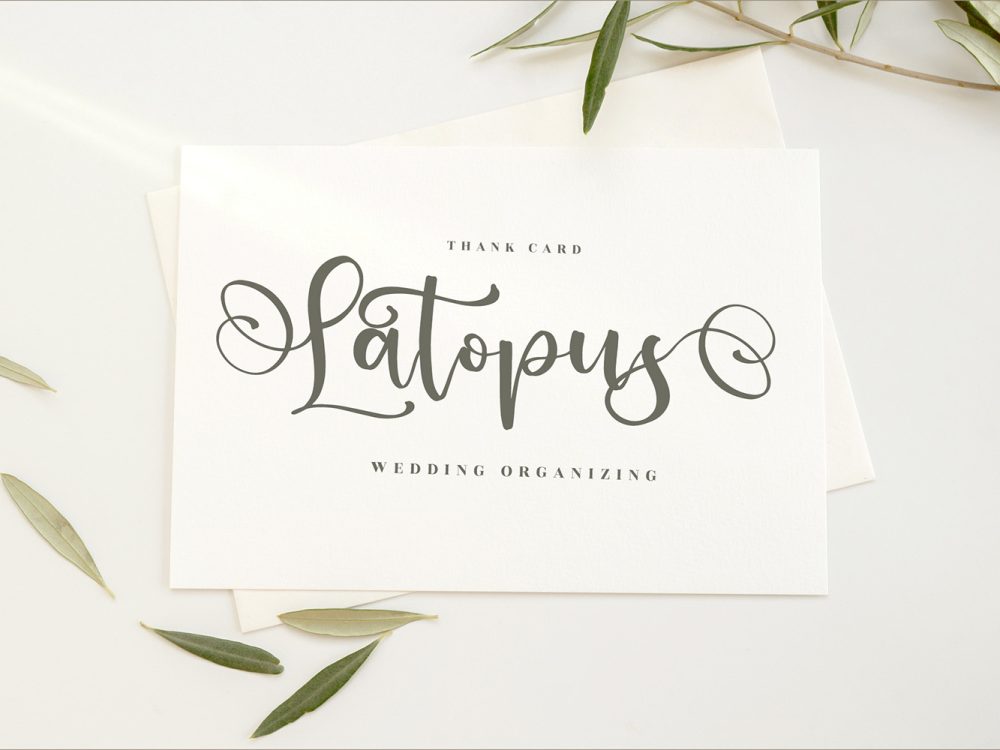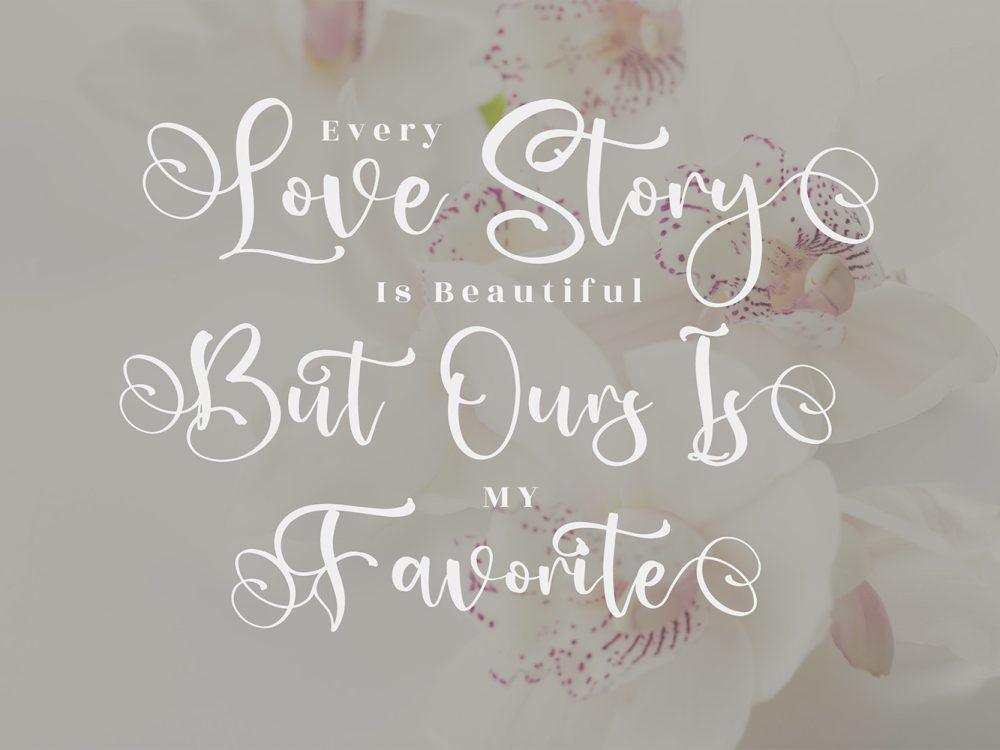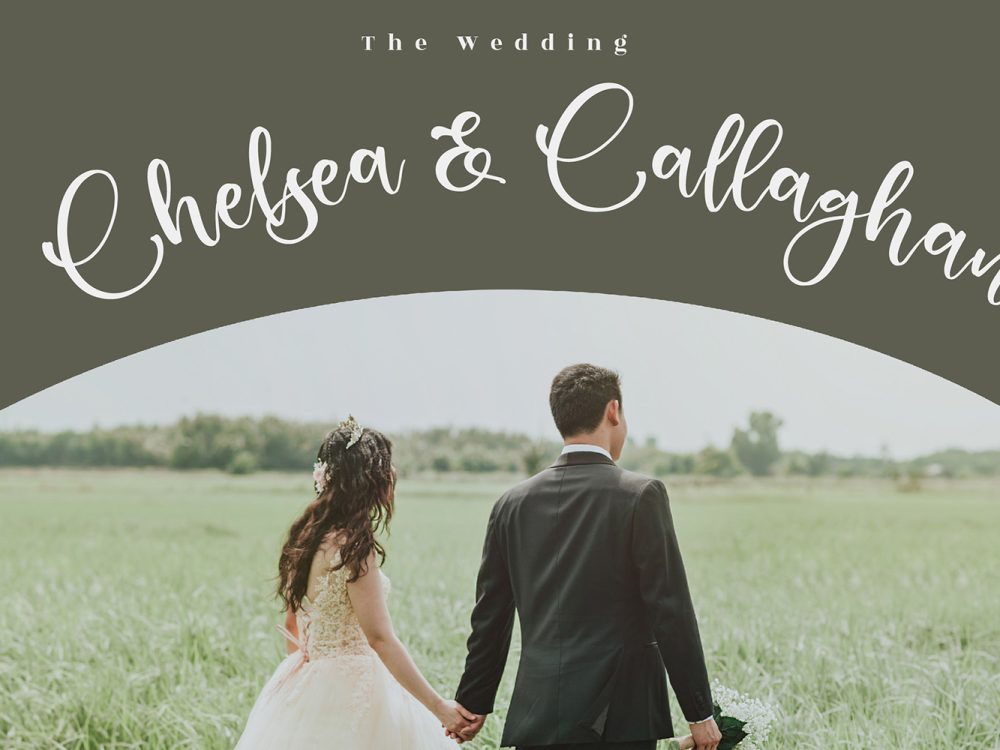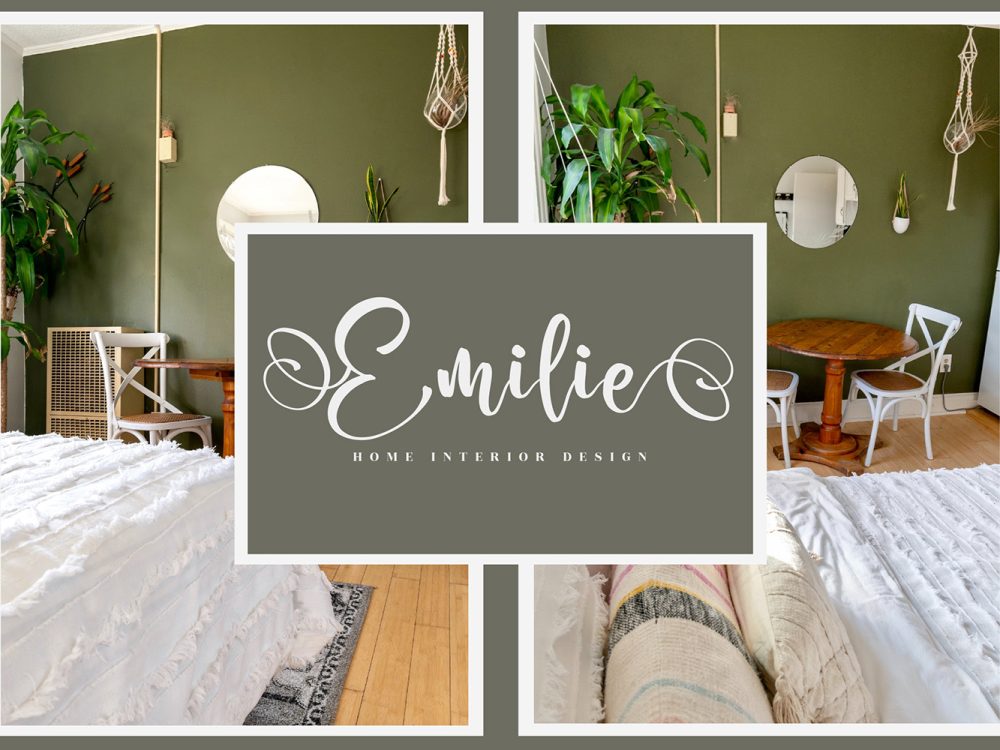
Ladytop Free Font is a lovely script font featuring charming, playful characters that seem to dance along the baseline. Add this font to your most creative ideas, and notice how it makes them stand out. If you like it don’t forget to check out the full version.
Author: Glorytype Studio.